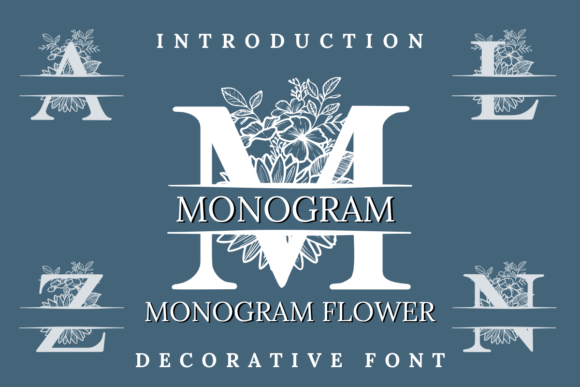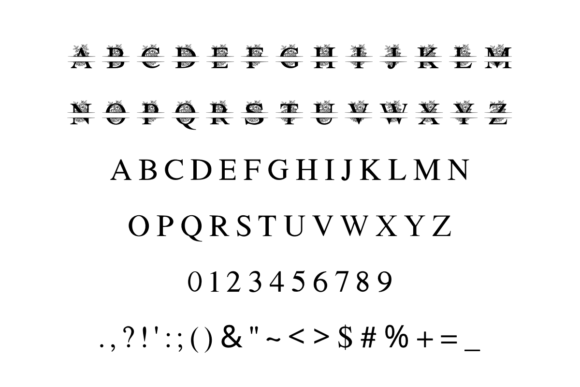
Monogram Flower Font
About the Monogram Flower Font
The Monogram Flower Font offers a perfect balance of form and function for your design needs. Monogram Flower is a special font where letters are designed with pretty flowers. It makes words look beautiful and elegant, like having a garden in each letter!
Monogram Flower Font’s delicate floral details make it ideal for projects requiring a touch of romantic elegance. It excels in applications such as wedding invitations, greeting cards, or branding for businesses focused on beauty, floral design, or artisanal products. Use it sparingly in short headlines or logos—avoiding extended body text where readability suffers.
It would not be suitable for user interfaces, large blocks of text, or situations needing high legibility at small sizes. The ornate letterforms are best showcased prominently.
Pairing Monogram Flower with a clean sans-serif like Lato or Open Sans for body text provides a pleasing contrast. For a more formal feel, consider a classic serif such as Garamond or Playfair Display. The overall personality of Monogram Flower is undeniably feminine, elegant, and whimsical.
Monogram Flower Font Usage Examples
Monogram Flower Font Example